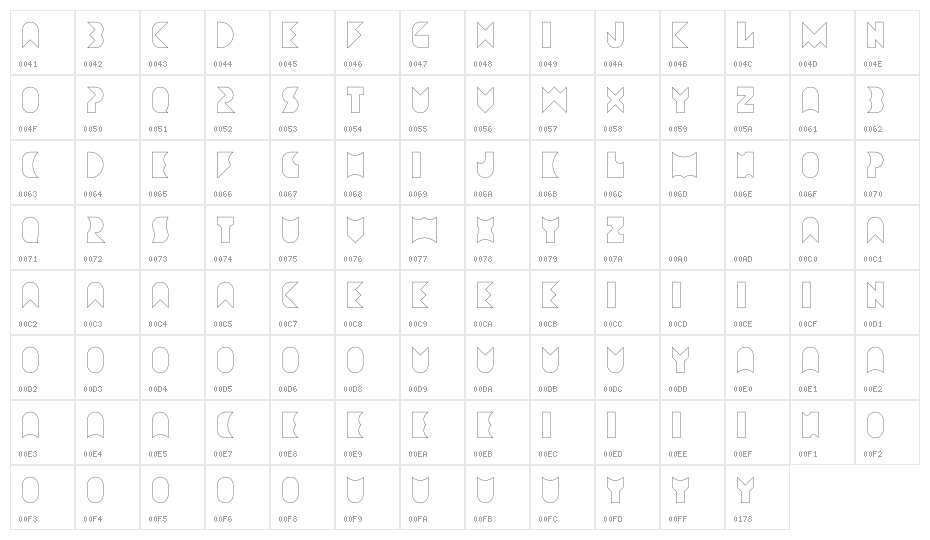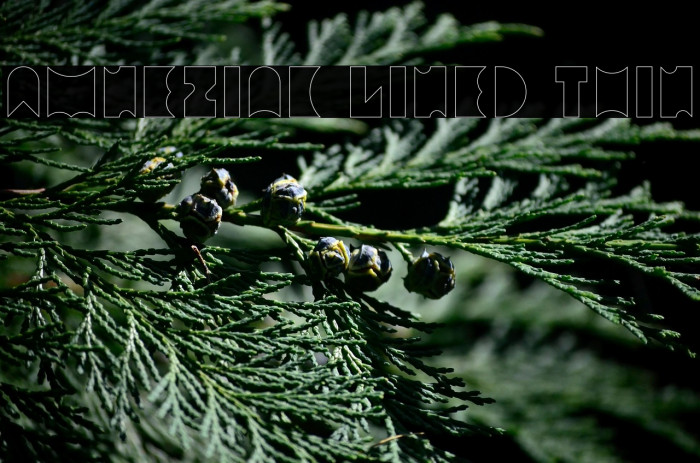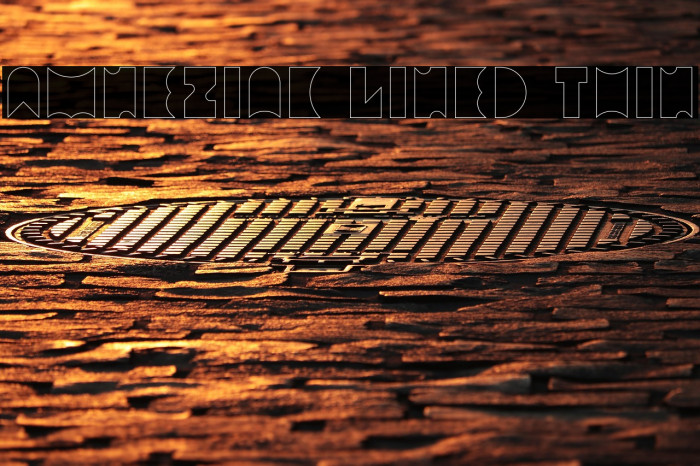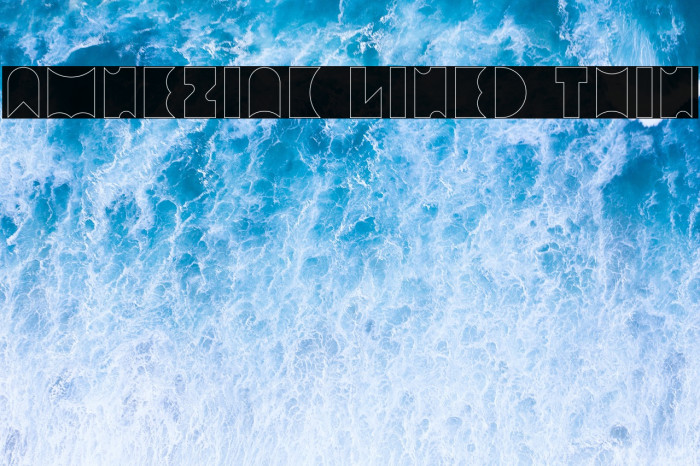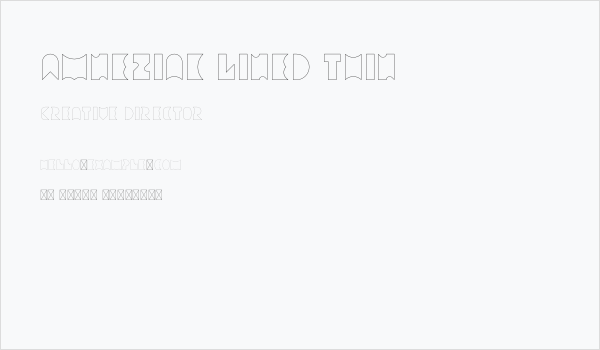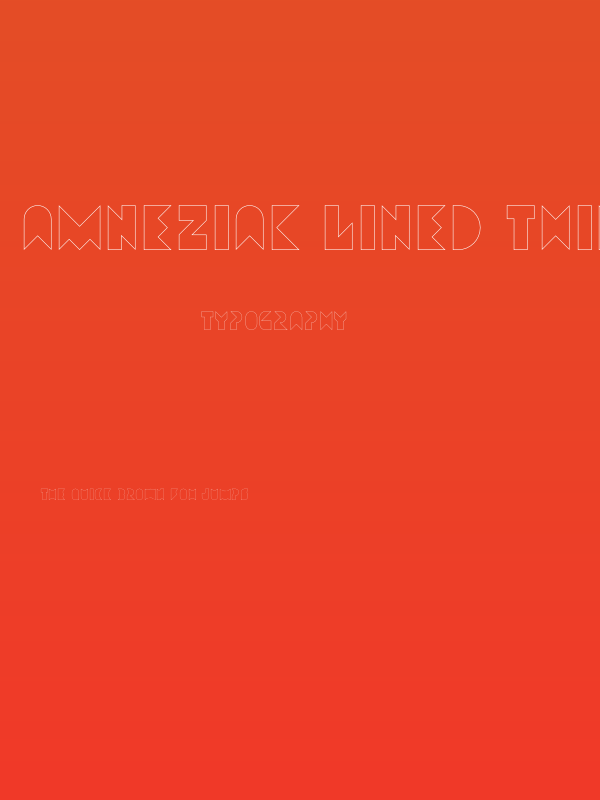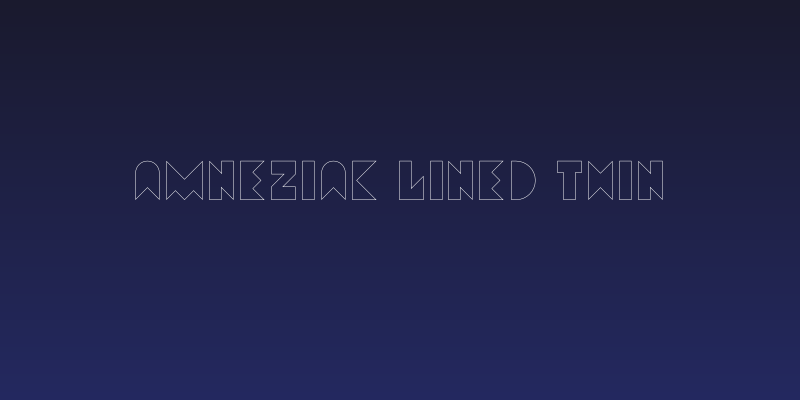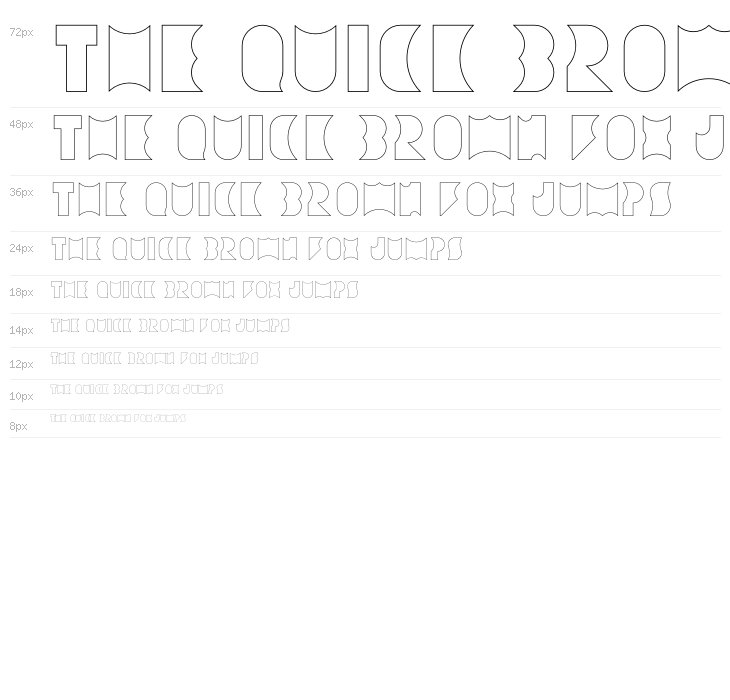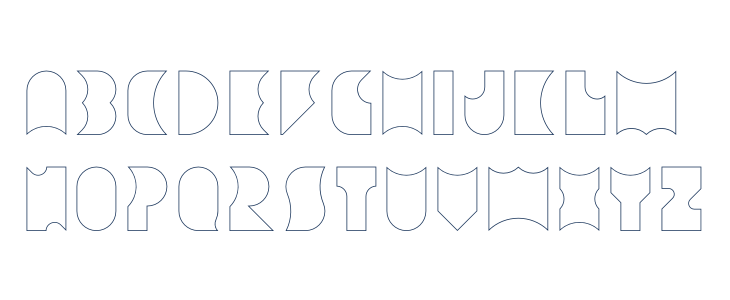
Amneziak Lined Thin Font
Amneziak Lined Thin Description
This font features a geometric and abstract design with a distinct lined pattern. Each character is constructed with sharp angles and straight lines, creating a futuristic and modern aesthetic. The uppercase letters are bold and striking, while the lowercase letters maintain the same angular style, providing a cohesive look. The numbers and special characters follow the same design principles, ensuring consistency across all glyphs. The overall appearance is clean and minimalistic, making it suitable for contemporary design projects.
| Proposed Projects | Ideal for branding, posters, album covers, and digital art projects that require a modern and edgy look. |